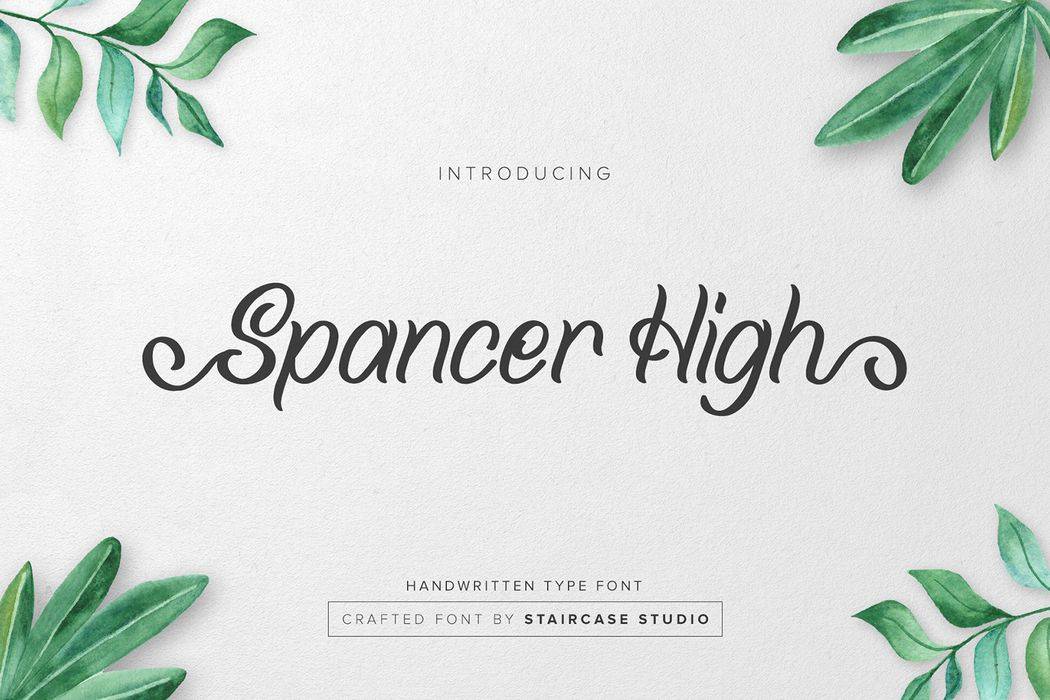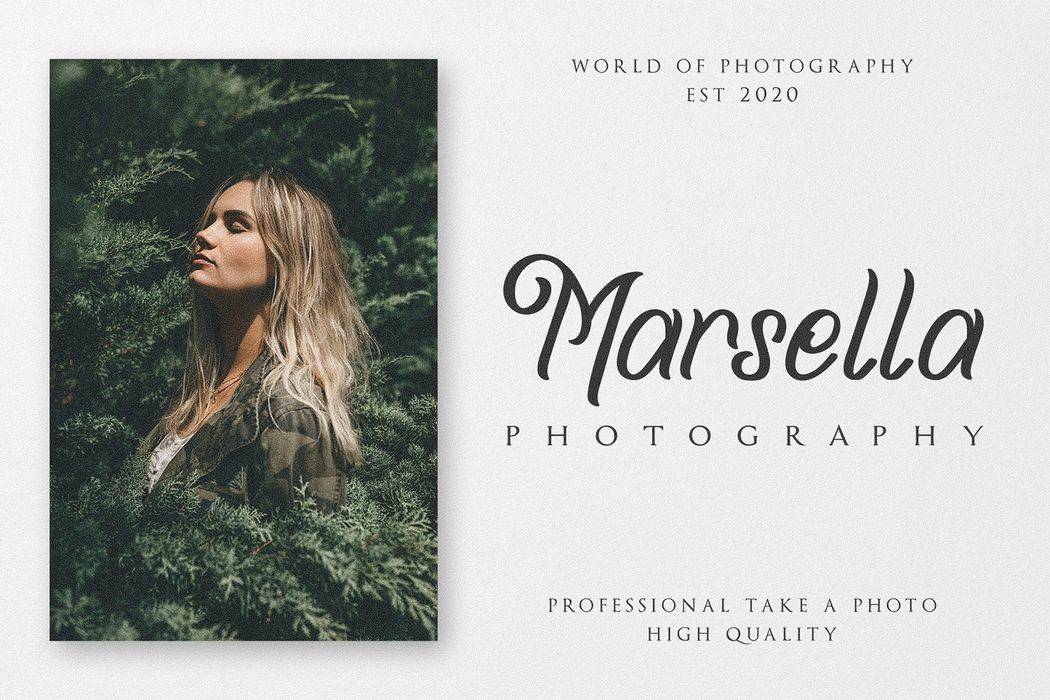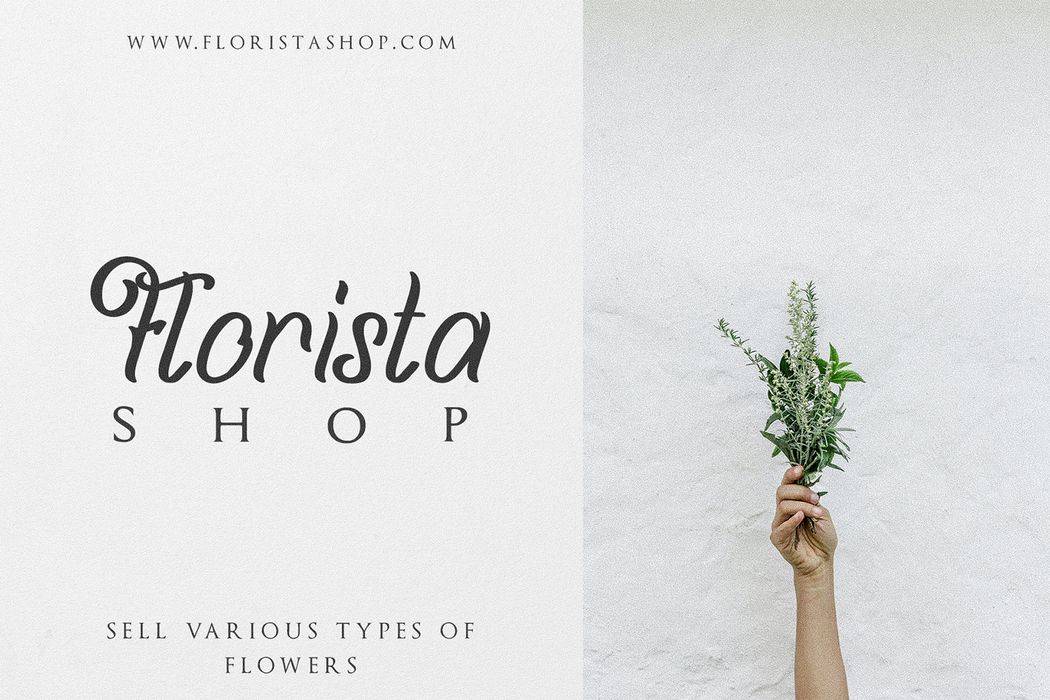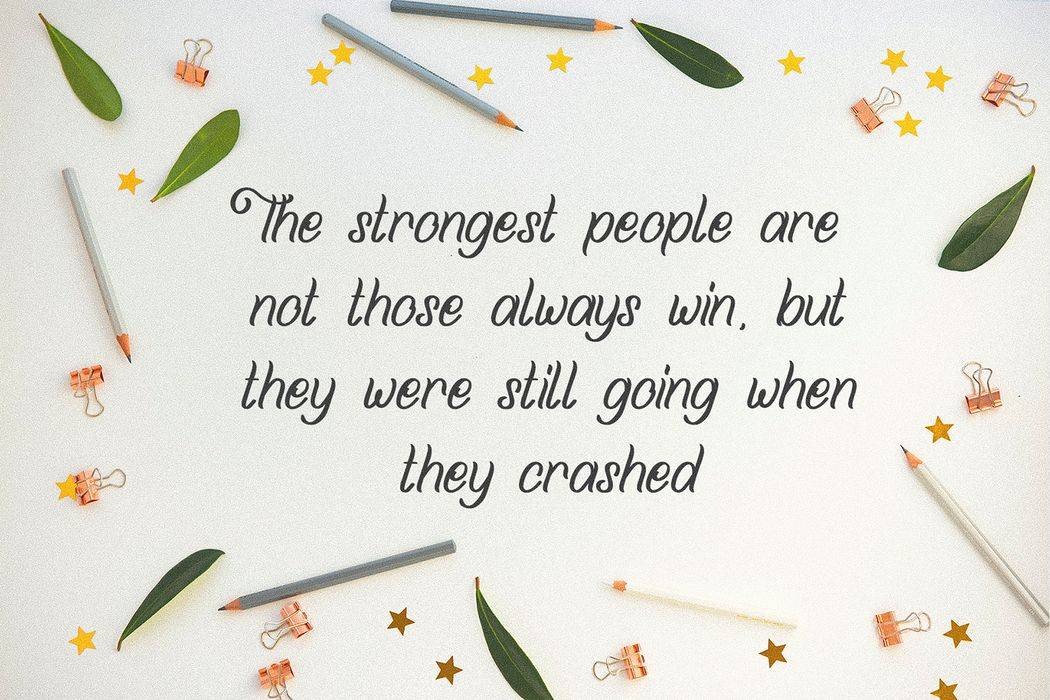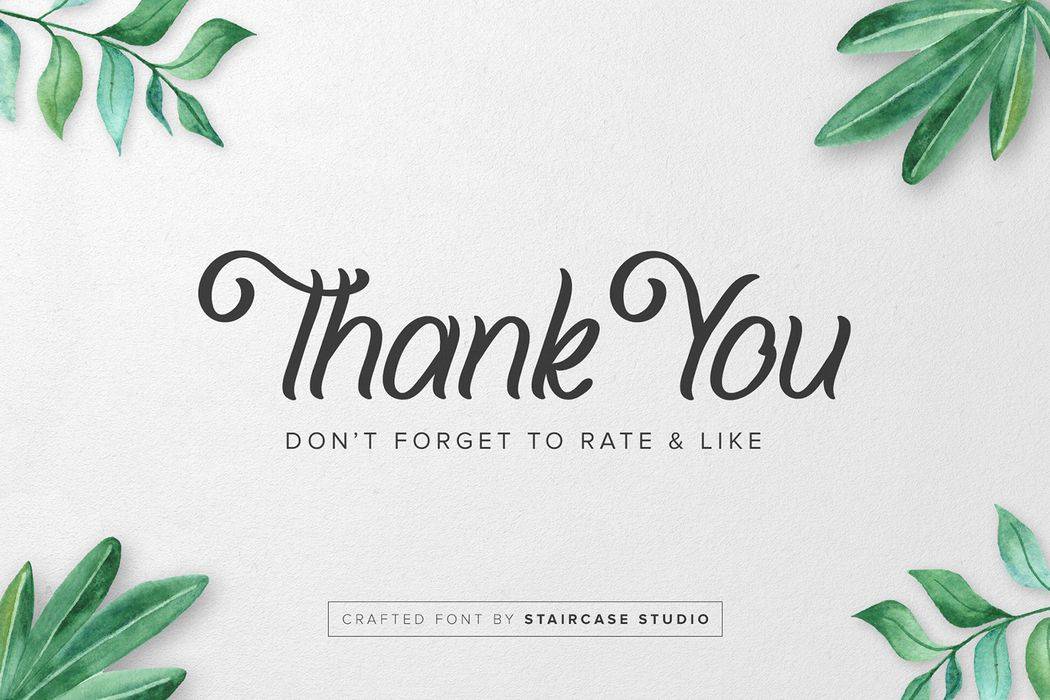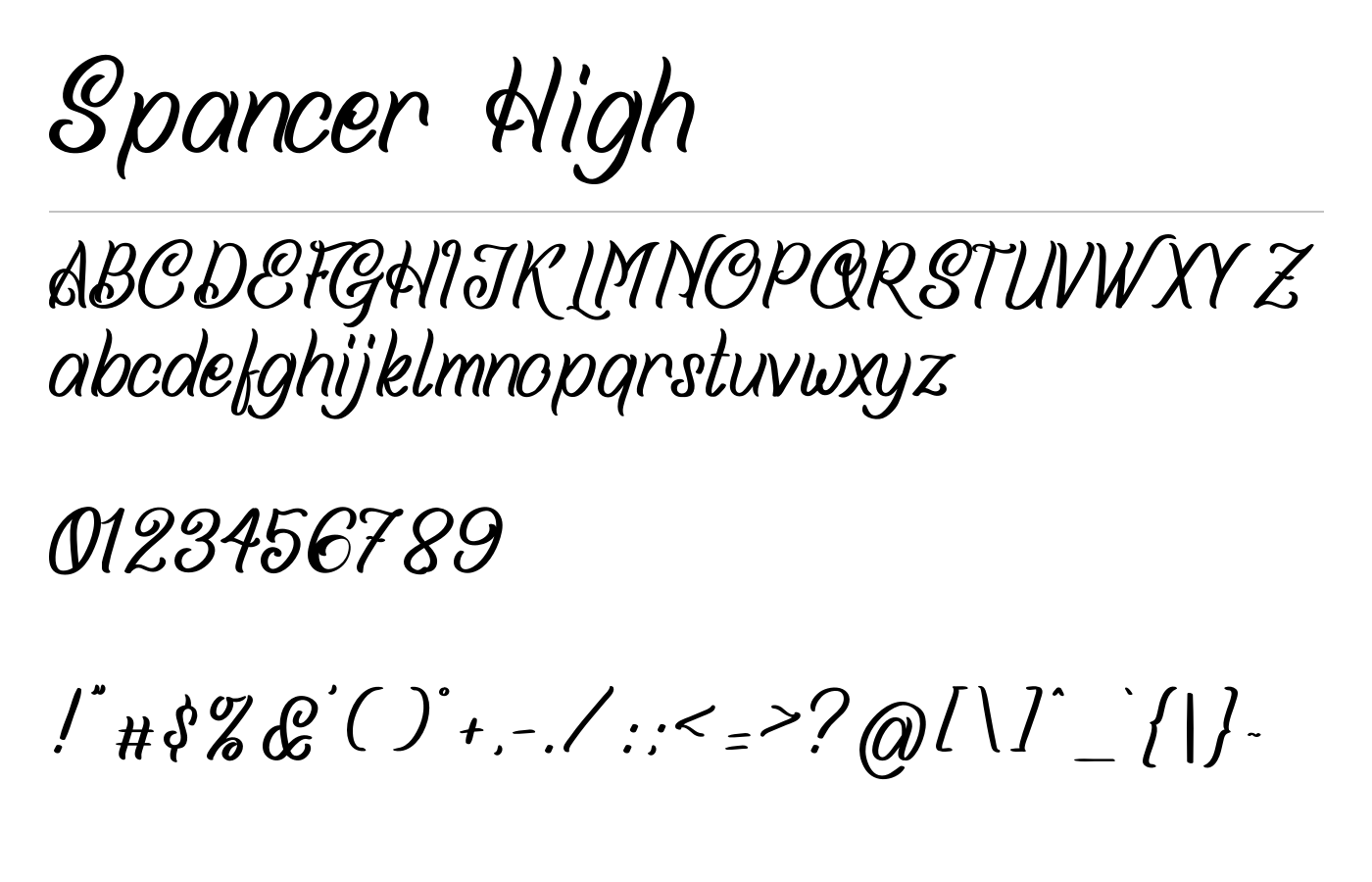
Spancer High is a playful and elegant script font with a light, flowing style that mimics natural handwriting. Its smooth curves and slight slant give it a friendly and creative feel, making it ideal for invitations, logos, and artistic branding where a personal and stylish touch is desired. This font works best in decorative and display settings, adding charm and sophistication without sacrificing readability.
Spancer High Font
About Spancer High Font
| Font family | Spancer High Font |